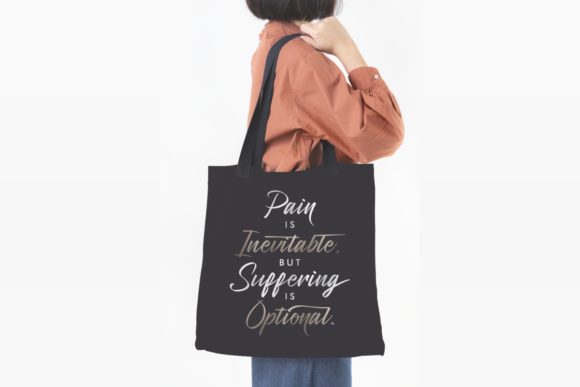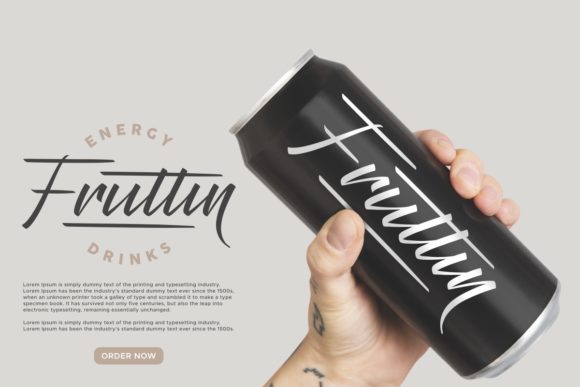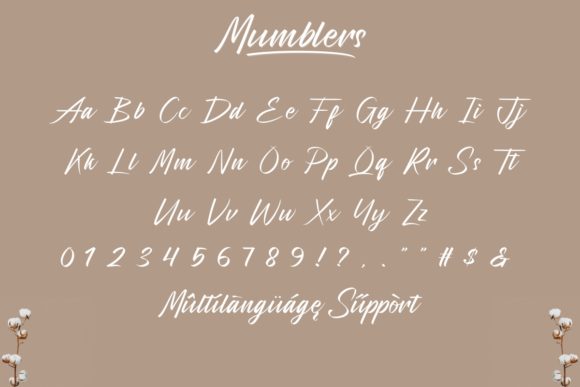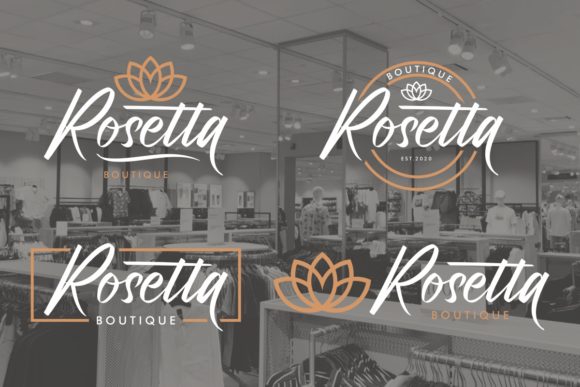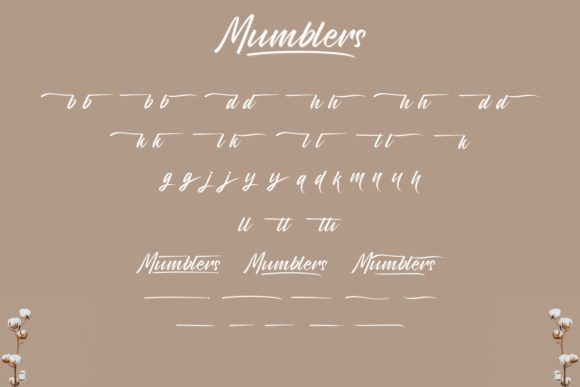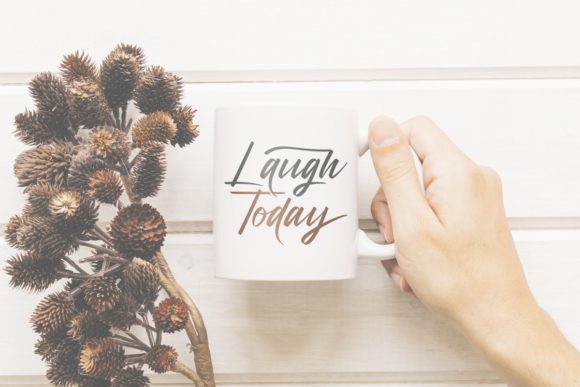
Introduction to Mumblers Font Font
Fonts play a crucial role in design, and the Mumblers Font font is a typeface that brings both character and versatility to any project. Whether you’re working on a branding project, a website, or a print design, the Mumblers Font font offers a unique style that can elevate your work.
Mumblers is a cursive and stylish handwritten font.
It has a classy, elegant and modern look that can be used for logos, branding, invitations, stationery, wedding designs, social media posts, and much more This font is PUA encoded which means you can access all of the glyphs and swashes with ease.
The Mumblers Font font is more than just a typeface – it’s a design tool that helps you communicate your message with style and clarity. Its unique character set and versatile design make it suitable for a wide range of applications, from elegant invitations to bold headlines.
With its carefully crafted letterforms and balanced proportions, the Mumblers Font font ensures readability and visual appeal across all mediums.
The Mumblers Font font stands out with its unique design, exceptional readability, and versatility across various design applications.